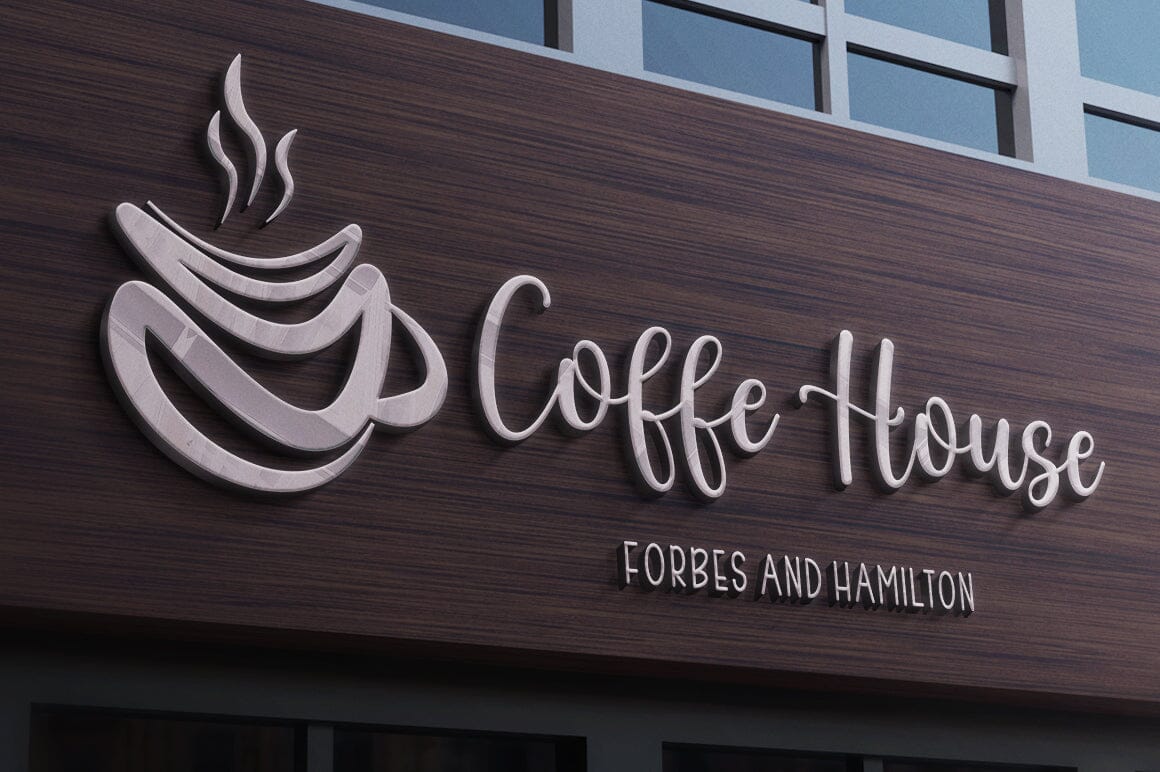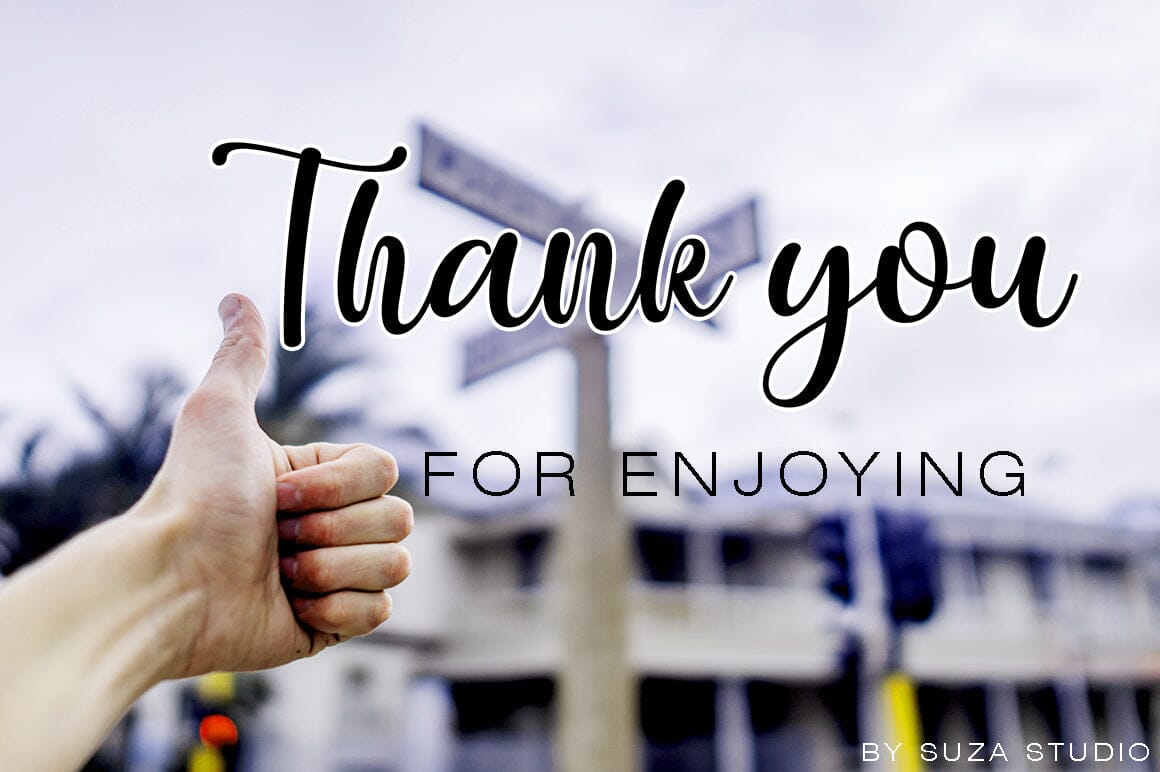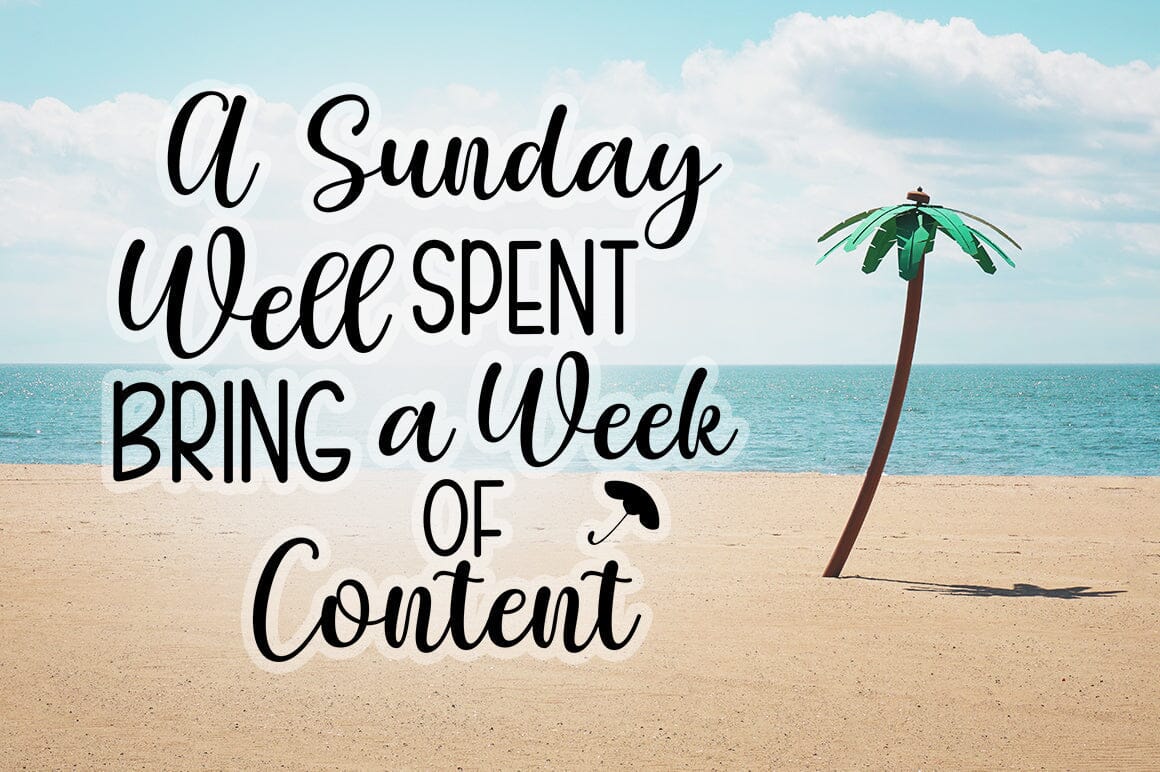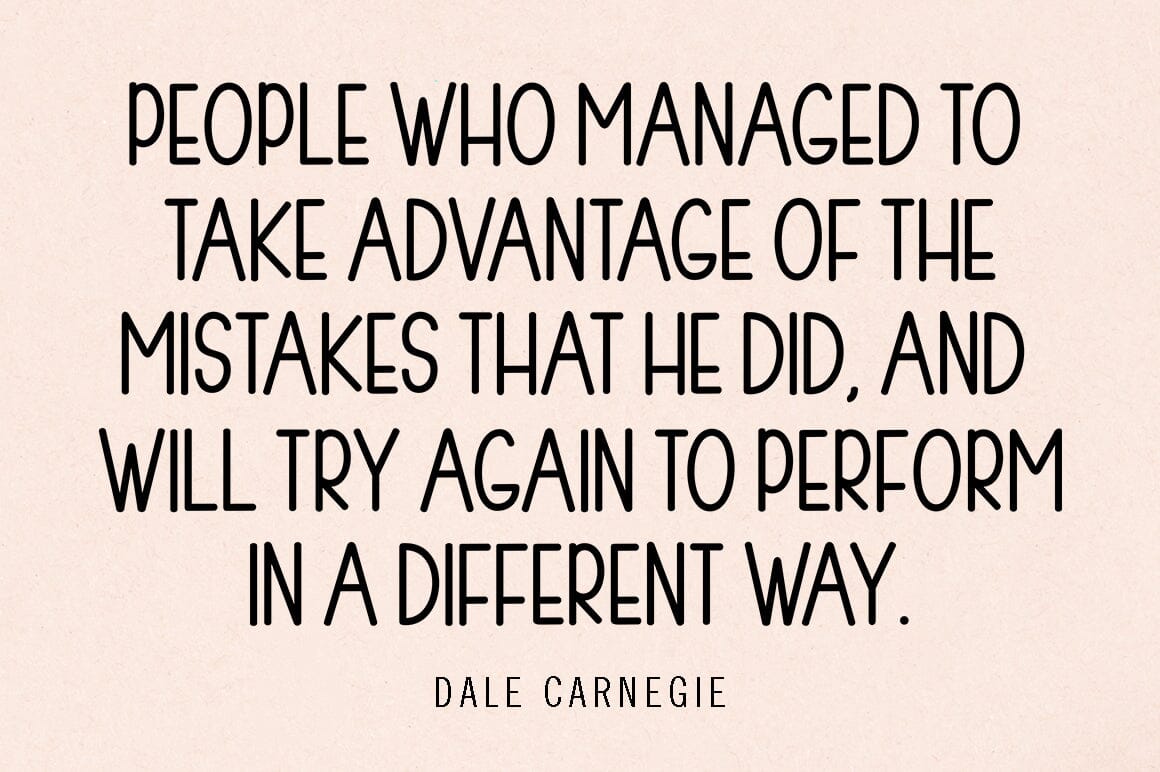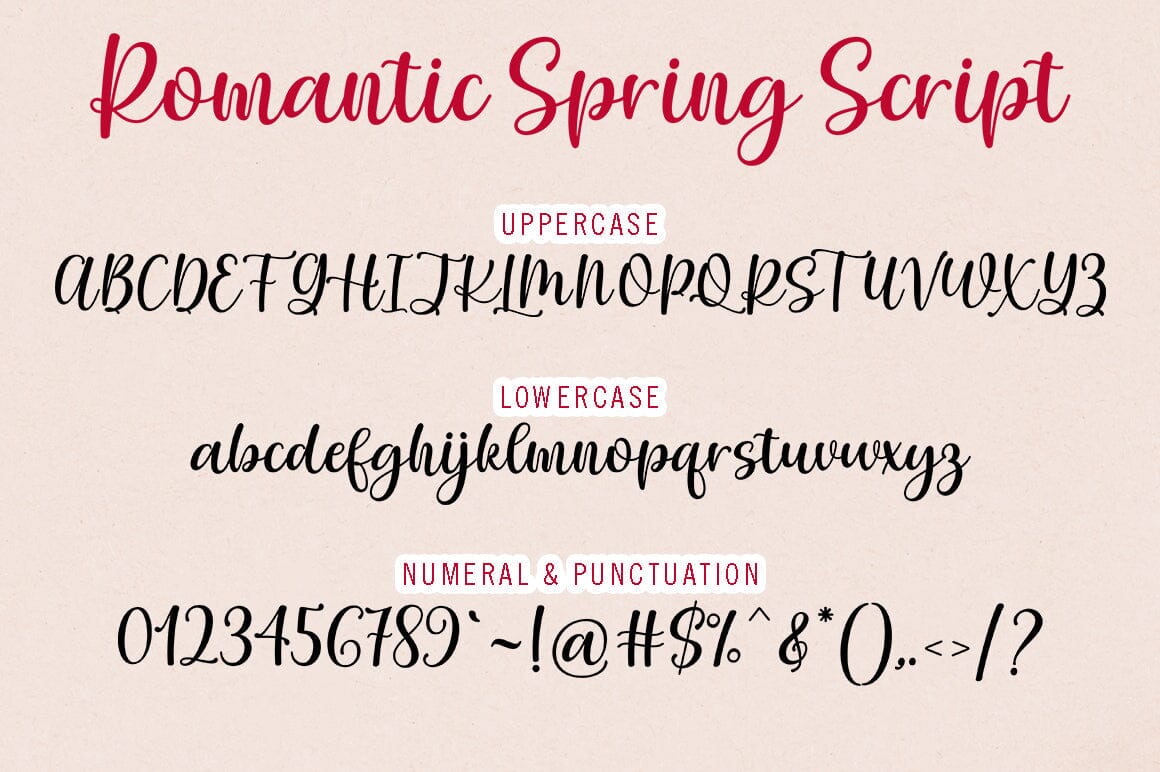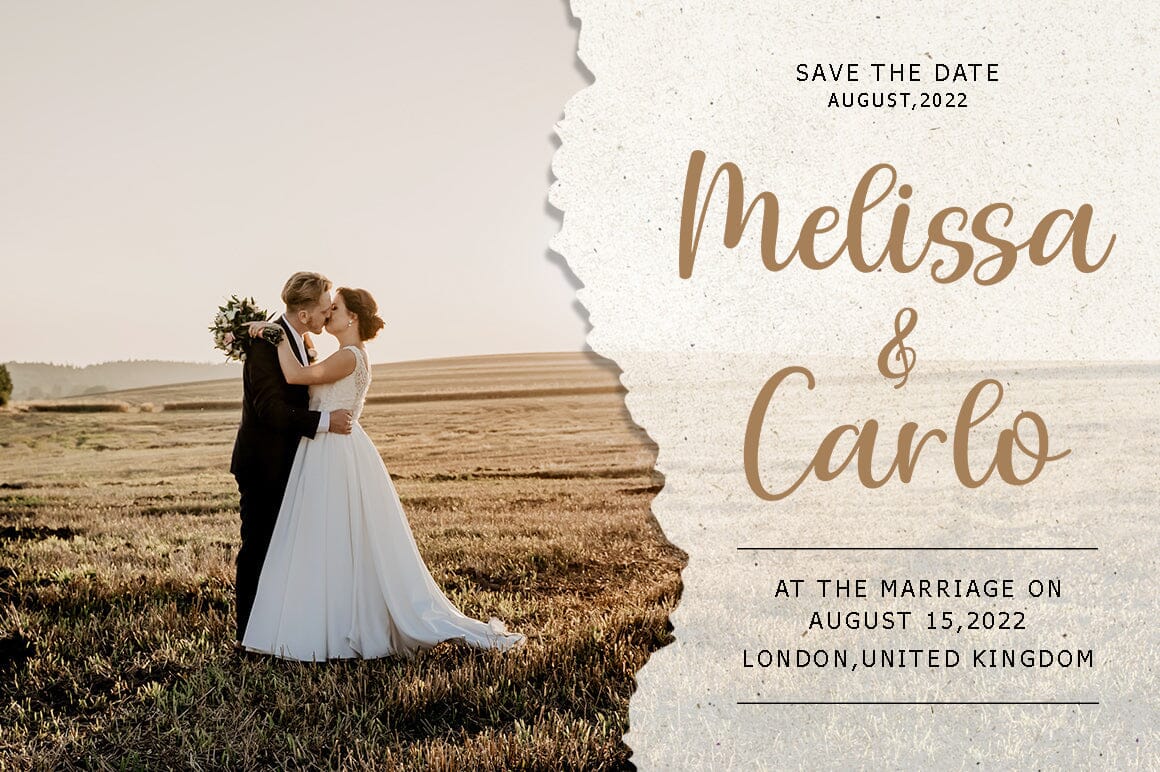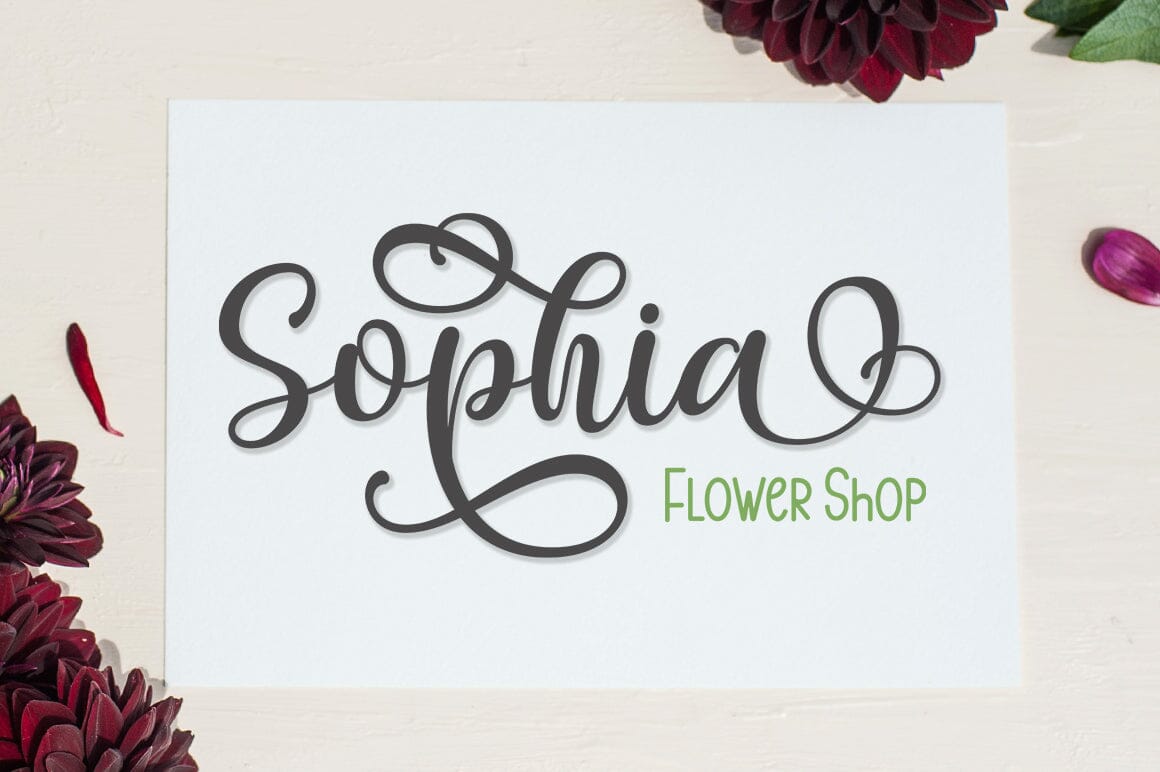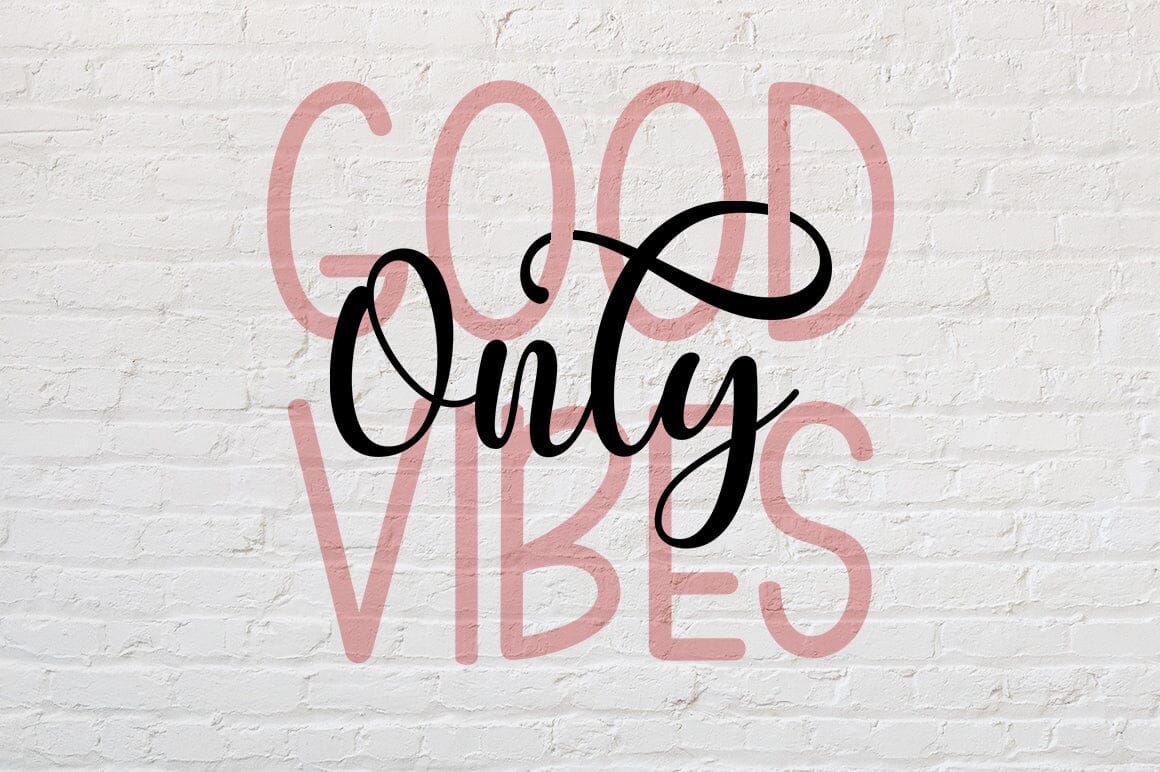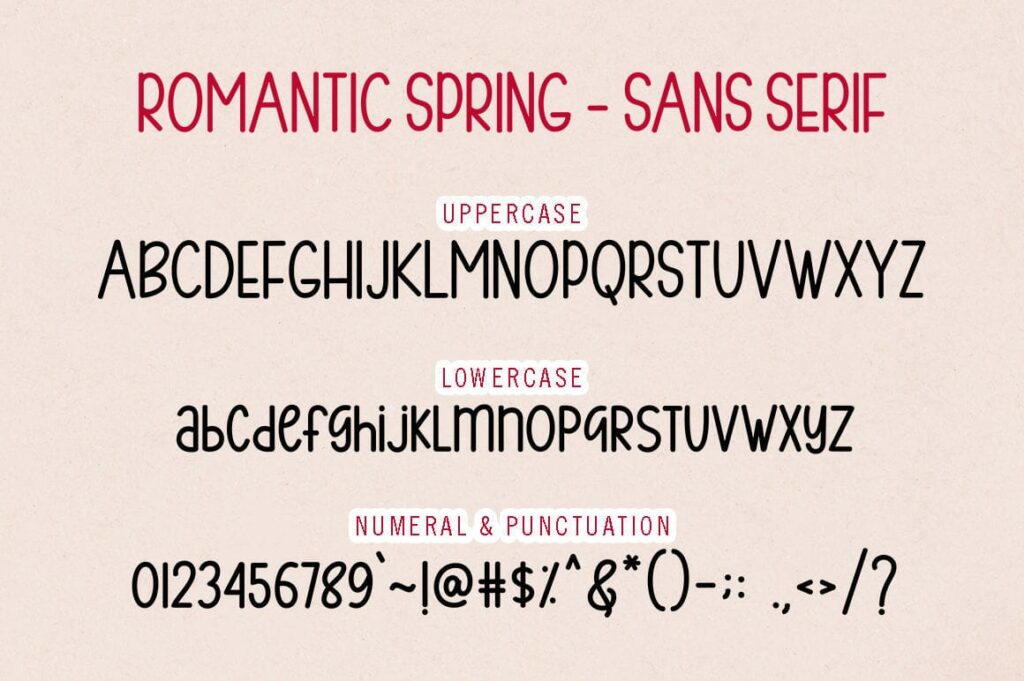
Romantic Spring
Romantic Spring duo font is a romantic and sweet calligraphic typeface with characters dancing along the baseline. This will add a splash of luxury to any design project you want to create! This font is PUA encoded which means you can access all the amazing glyphs and ligatures with ease! Ð’ Files Included: -Romantic Spring Script.OTF/TTF -Romantic Spring Sans.OTF/TTF Ð’ This duo is perfect for quotes, titles, blogs, logos, branding, invitations, and more! Ð’ You will be able to use this font duo in ANY program! Ð’ Thank you!!